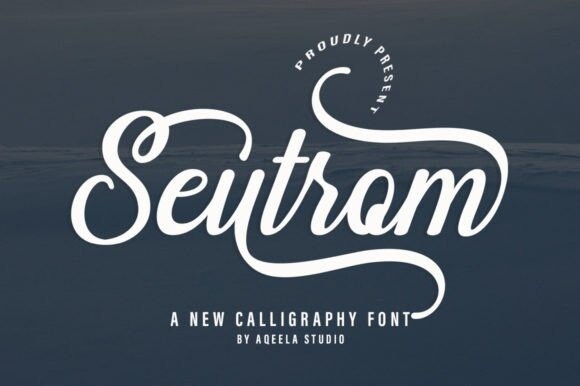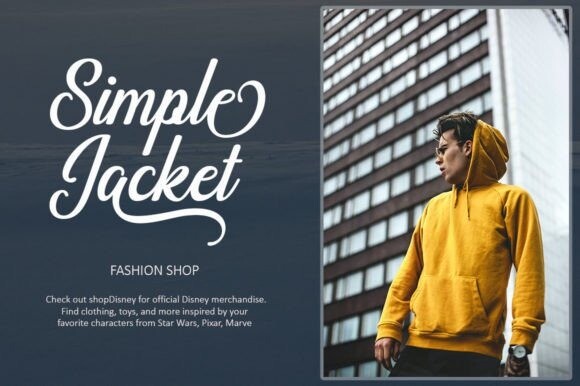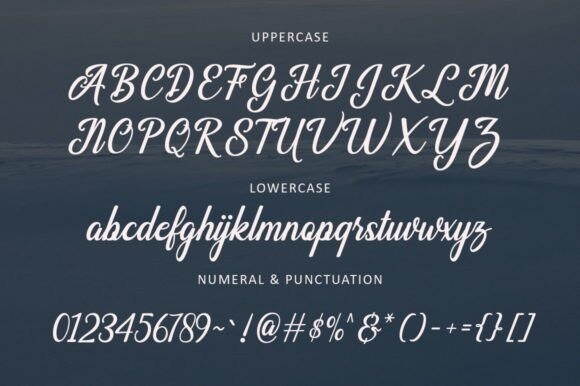
Seutrom Font
Seutrom Font is a beautiful script font featuring charming and playful characters that seem to dance along a baseline. This font is PUA coded which means you can access all the glyphs and swashes easily!